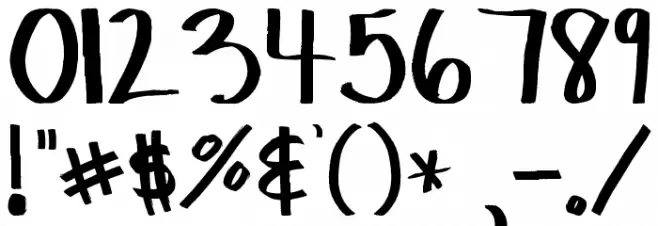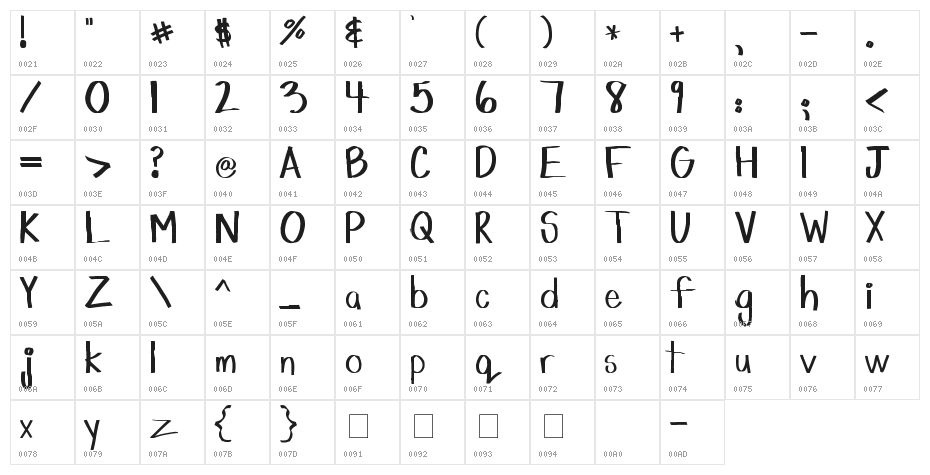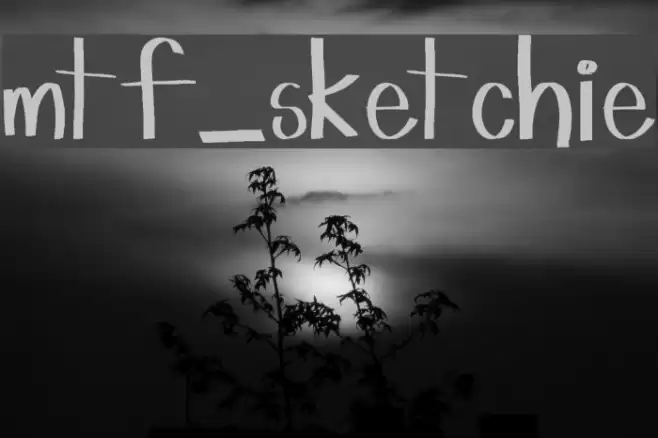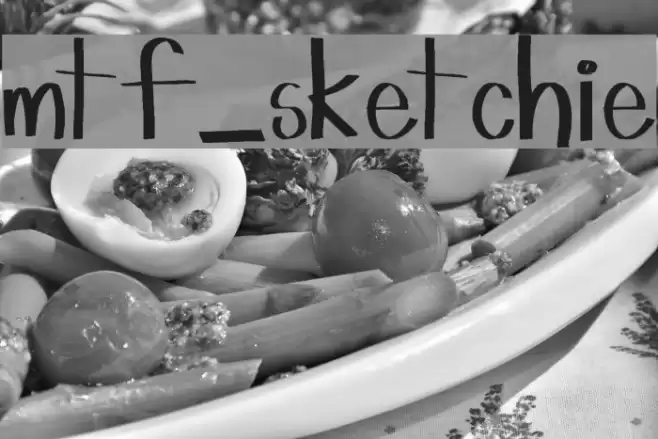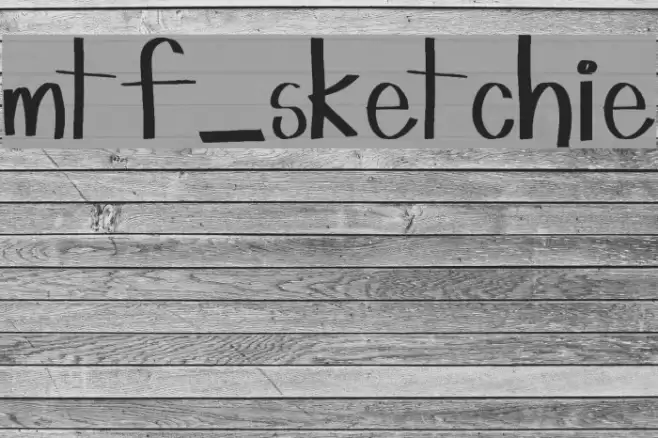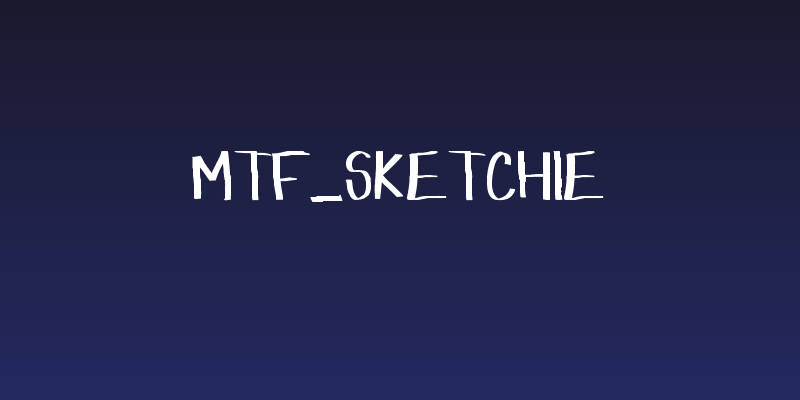
mtf_sketchie Font
mtf_sketchie Description
This font exudes a playful and informal vibe, characterized by its hand-drawn, sketch-like appearance. The letters are uneven and slightly irregular, giving them a whimsical and artistic feel. The strokes vary in thickness, adding to the casual and relaxed aesthetic. The uppercase and lowercase letters maintain a consistent style, with a slightly exaggerated and elongated form. The numbers and special characters follow the same playful design, ensuring a cohesive look across all elements. This font is ideal for projects that require a touch of creativity and individuality, such as children's books, artistic posters, or casual branding.
| Proposed Projects | Children's books, artistic posters, casual branding, creative invitations. |